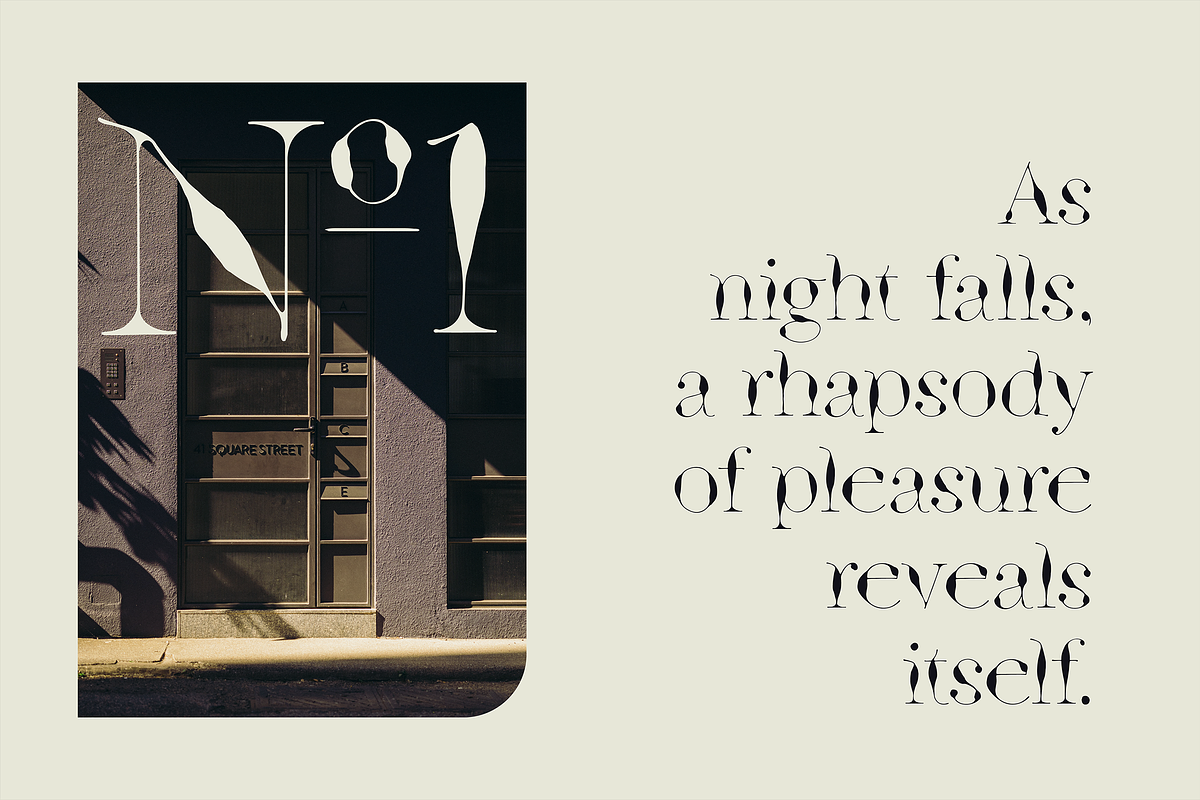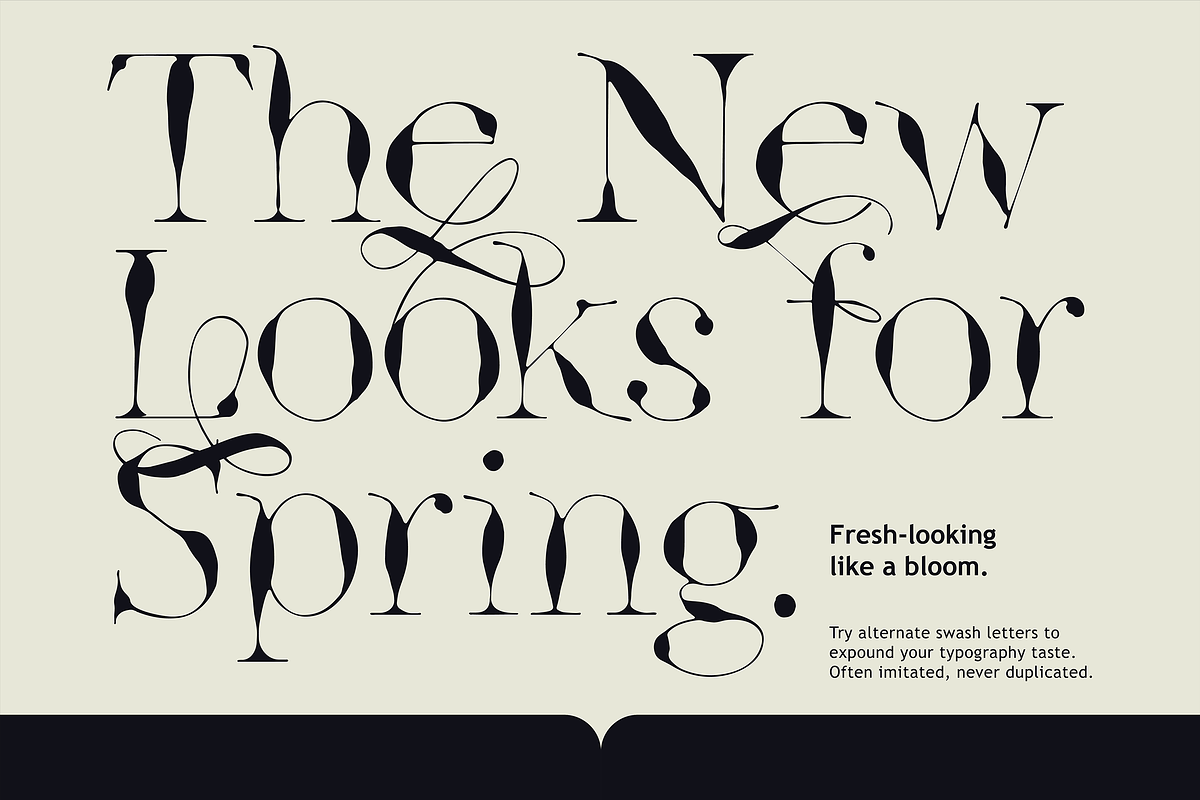
Ink Style Godwit Serif Font Family
Don’t be afraid of the dark! Grab the attention of everyone around with sophistication and style. High-contrast styles like these hit all of the right marks when you need to go big. Splashes you create will jump out from the page and screen with this collection of 6 intense fonts.
Godwit is an experimental font family that includes a high contrast serif, an alternated script, a signature with 3 weights, a swashes font with 2 new stylish wet looks from script and signature.
The piece screams creative freedom and exploration, as the color literally breaks through the boundaries of the original type. The final piece is really fluid as each letter links smoothly into the next and you can feel the real natural ink paths. This is a benefit of Godwit and the most powerful-distinguishable feature, as most standard fonts wouldn’t allow for this fluidity, especially a serif font.
The main idea comes from being fluent and smooth-spoken natural ink shapes. As we go into the details, the organic shape of the body makes the font unique. And uniqueness needs a signature. Godwit Signature comes with 3 weights and the new style is called “wet” which feels undried ink looks. Feel the realness, also you can support them with Photoshop styles such as liquid mercury, black ink, or even chrome! Amazing swashes, super cool open type features, multiple glyphs for letters along with many options writing the same word in different manners for sexy headlines. Its Scripts provide a nice rhythm and dynamism within the text. The shapes of letters show a taste for elegance and extravaganza at the same time but with all extra characters and swashes? It will be more than a text. The motto of Godwits is “ It’s not about serifs or scripts anymore, it's about being design itself ”. The collection lends itself to the design, packaging, and advertising of everything with a romantic feel and liquid love potion; weddings, greetings, cosmetics, lingerie, book covers, and too many more to mention! These fonts are a great place to begin getting that tone. Bold, seductive curves with sexy lines, runway ready. This is typographic innovation at its most gorgeous. Luxurious and fashion-forward type design can be reinvented with Godwit’s natural-ink look.
Godwit Serif: An experimental high contrast serif font comes with tons of alternate characters, OpenType features, kerning metrics, and uniqueness. More than 400 glyphs and large multilingual support ready to replace your next design.
Godwit Script: Like serif style Godwit Script has a natural ink-written style and already has alternate characters with some ligatures. Also, the new Wet style included full alternated characters to family.
Godwit Signature: You can’t imagine a masterpiece without a signature. Godwit Signature comes with 3 different weights and a new stylish Wet Style that will blow your mind.
Godwit Swashes: If you love more attraction and adrenaline you definitely add some swashes to your text.
- Godwit is an experimental font family that includes a high contrast serif, an alternated script, a signature with 3 weights, a swashes font
- The shapes of letters show a taste for elegance and extravaganza at the same time but with all extra characters and swashes?
- WHAT YOU GET: Godwit Serif: An experimental high contrast serif font comes with tons of alternate characters, OpenType features, kerning met
- More than 400 glyphs and large multilingual support ready to replace your next design.
- Godwit Script: Like serif style Godwit Script has a natural ink-written style and already has alternate characters with some ligatures.
- Also, the new Wet style included full alternated characters to family.
Why Ink Style Godwit Serif Font Family is worth a look